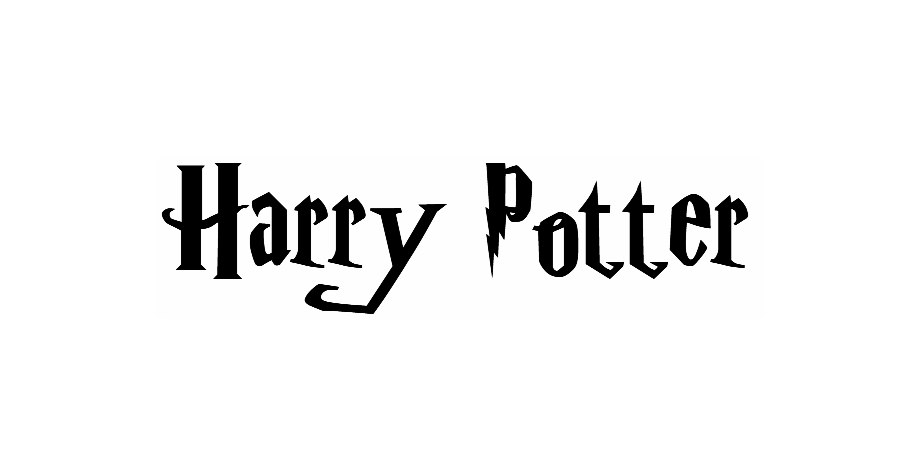
Harry Potter font
Scholastic never released the Harry Potter franchise’s official typography as a standard retail font file. Illustrator Mary GrandPré originally hand-drew the iconic title logo—with its jagged angles and signature lightning bolt “P”—for the 1998 U.S. book covers. Warner Bros. later refined this custom lettering piece for the global films.
Harry Potter is a fancy font. Bold and full of character, it's built to stand out rather than blend in. You can download it for free and test it with your own words in the preview above.
Harry Potter has the full alphabet in upper and lowercase. There are no numbers, so you'll need a second font for dates, prices or phone numbers. Punctuation is limited, so look at the character map if you need a specific symbol. It has 6 accented letters, but not the full set for Spanish or French, so test any non-English words first.
Designers usually reach for fonts like Harry Potter when they're making posters, logos and eye-catching headlines. Use it for one standout word or headline and let simpler fonts handle the rest.